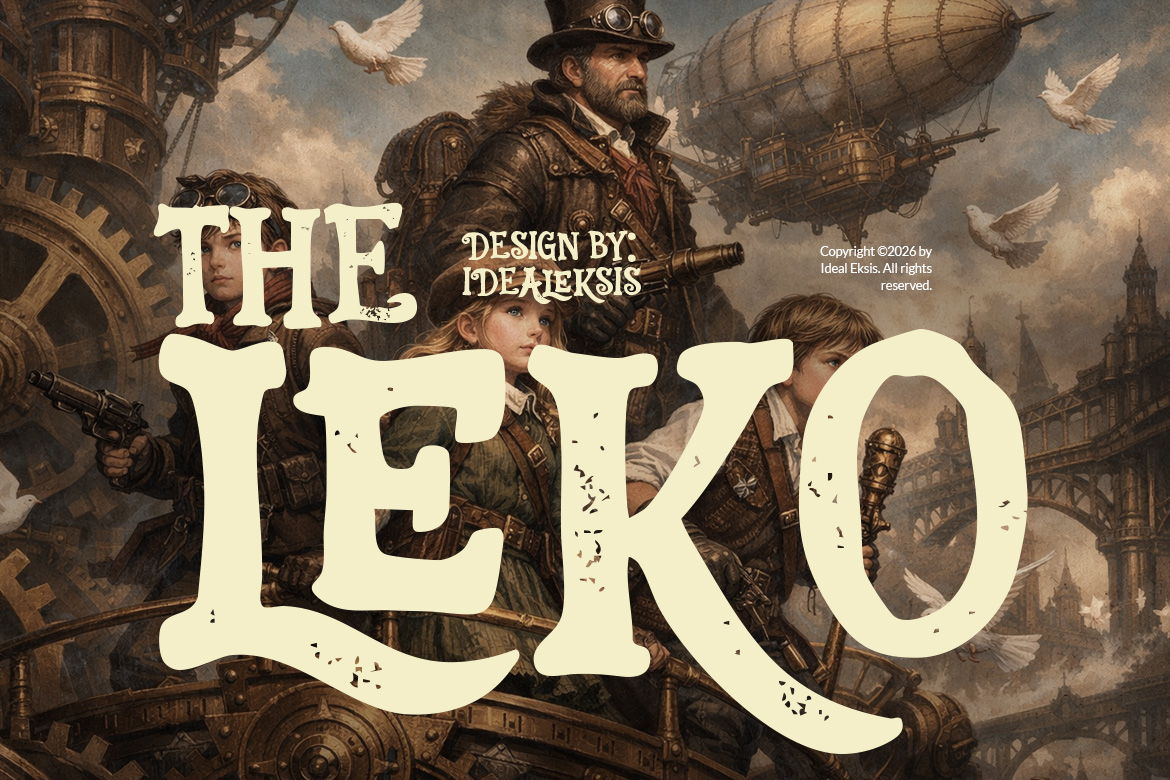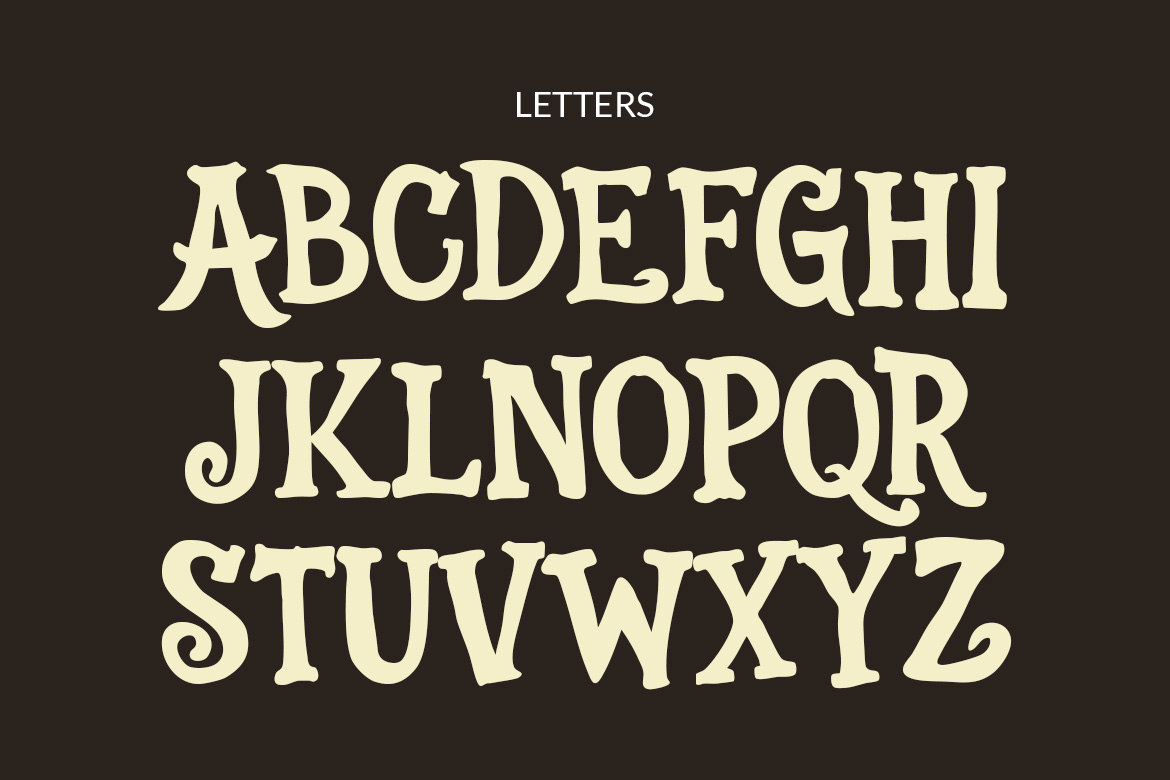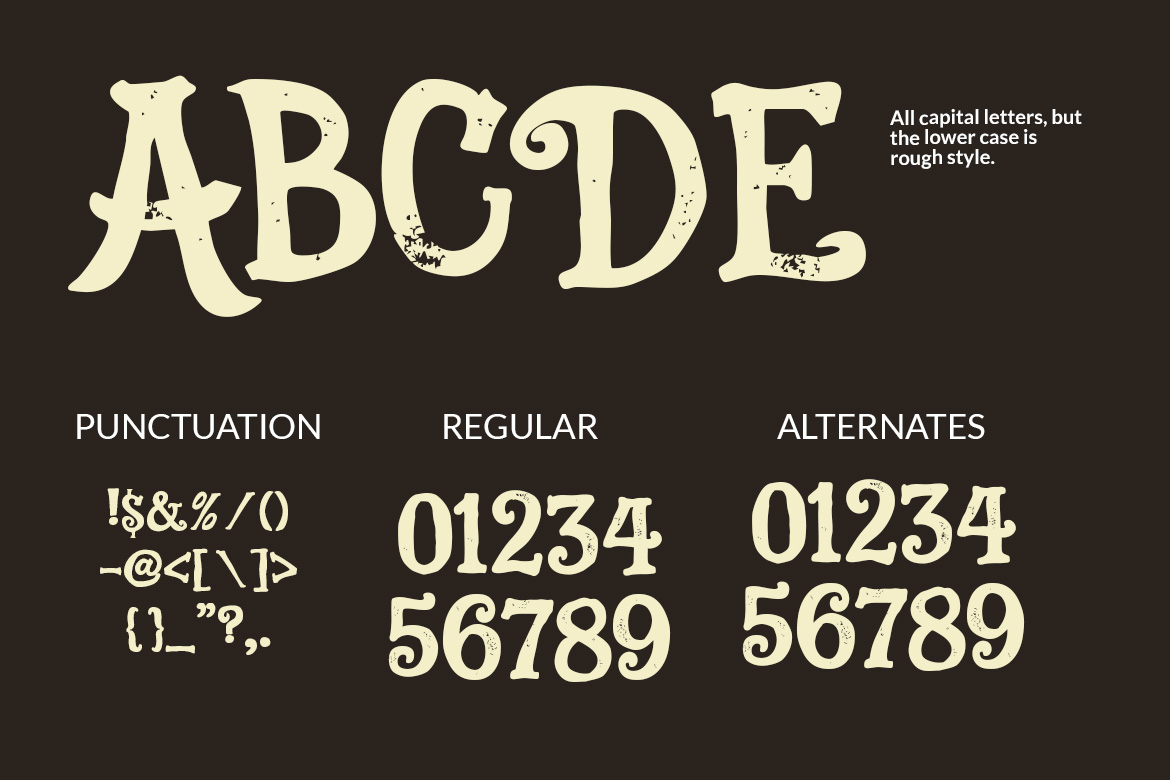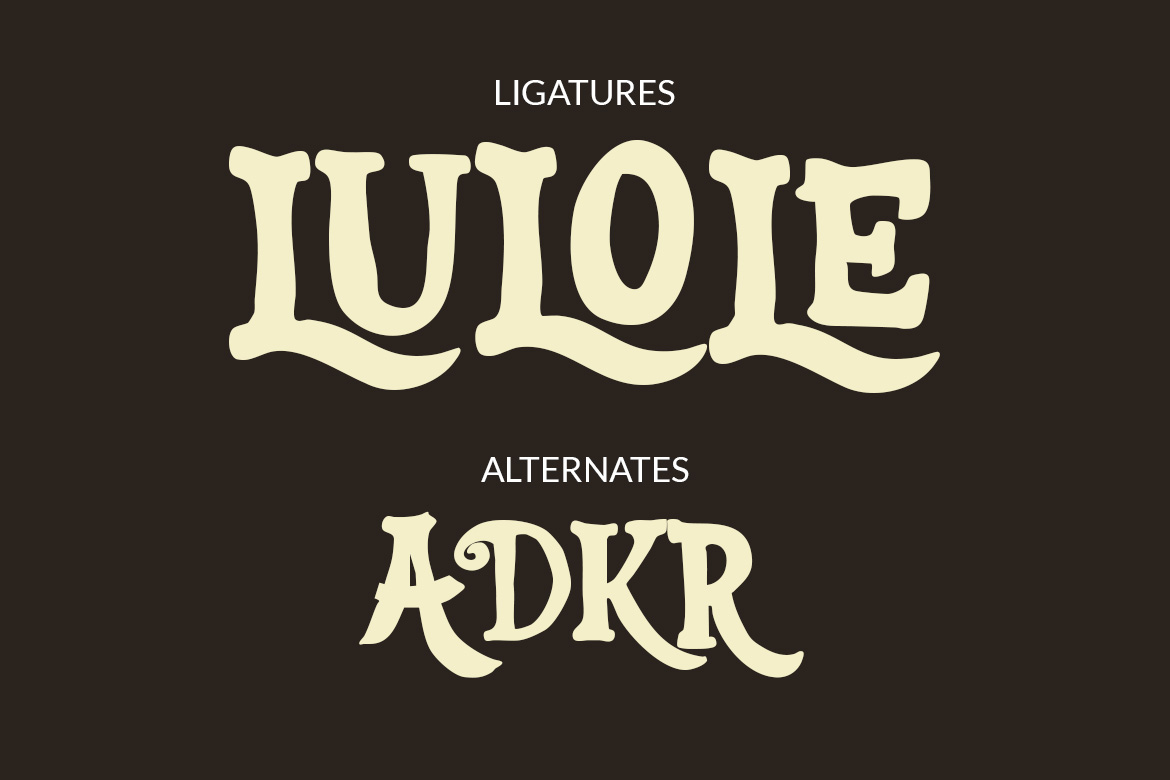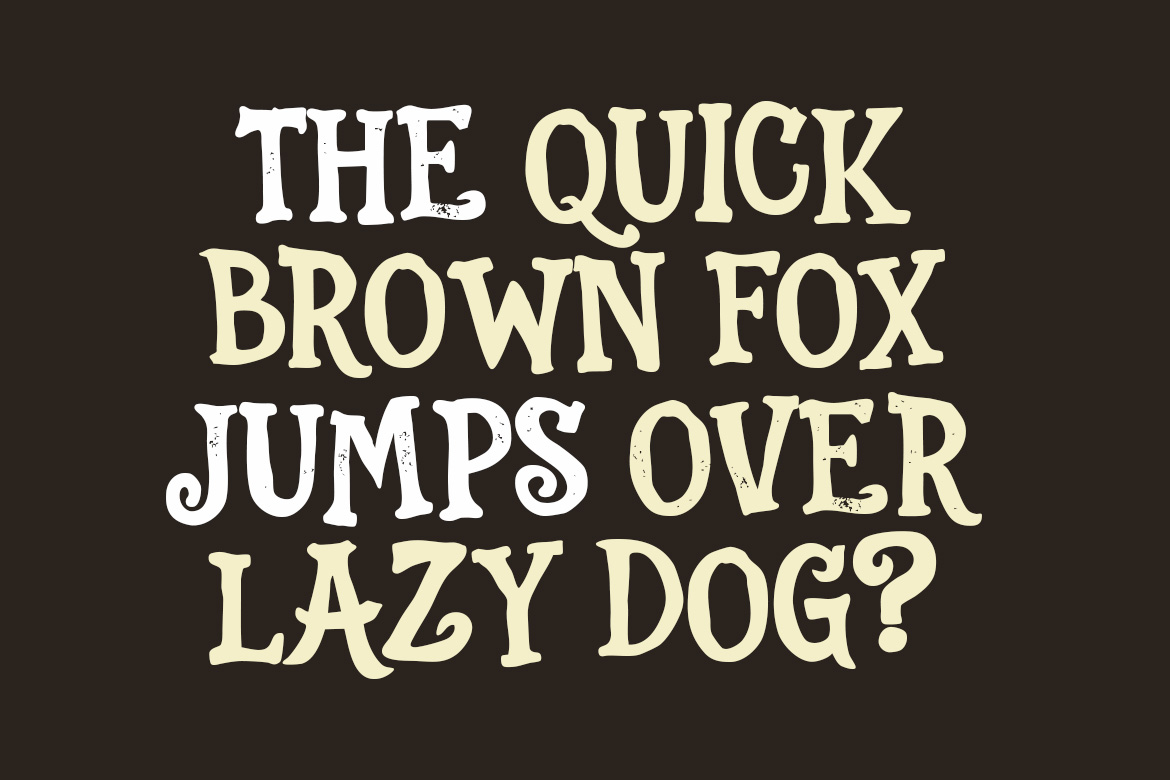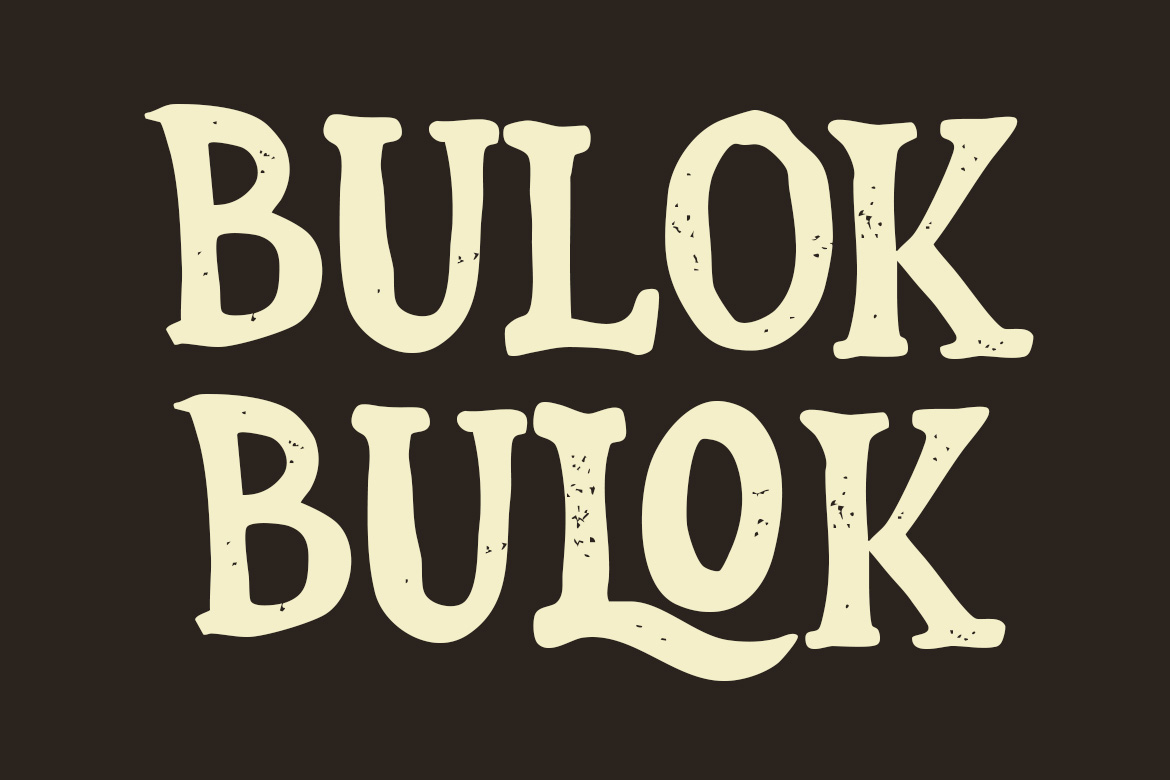
The Leko
This bold display typeface is characterized by its heavy weight and industrial-inspired letterforms. It features thick, blocky stems and prominent slab serifs with softened corners, evoking a sense of mechanical strength. In Package : OTF TTF WOFF WOFF2 Feature : Uppercase (All Caps) Alternate Ligatures Numerals Punctuation Easy To Install